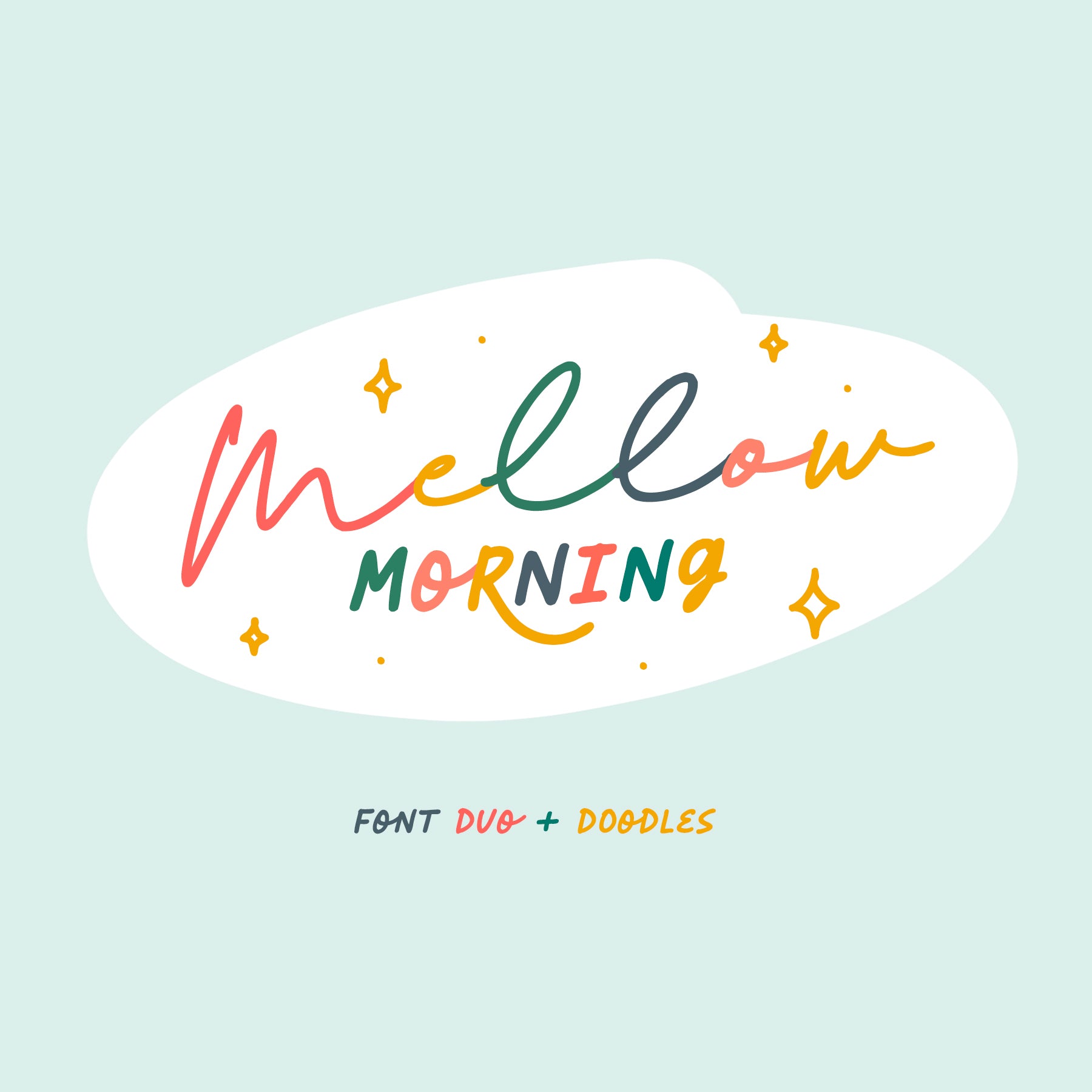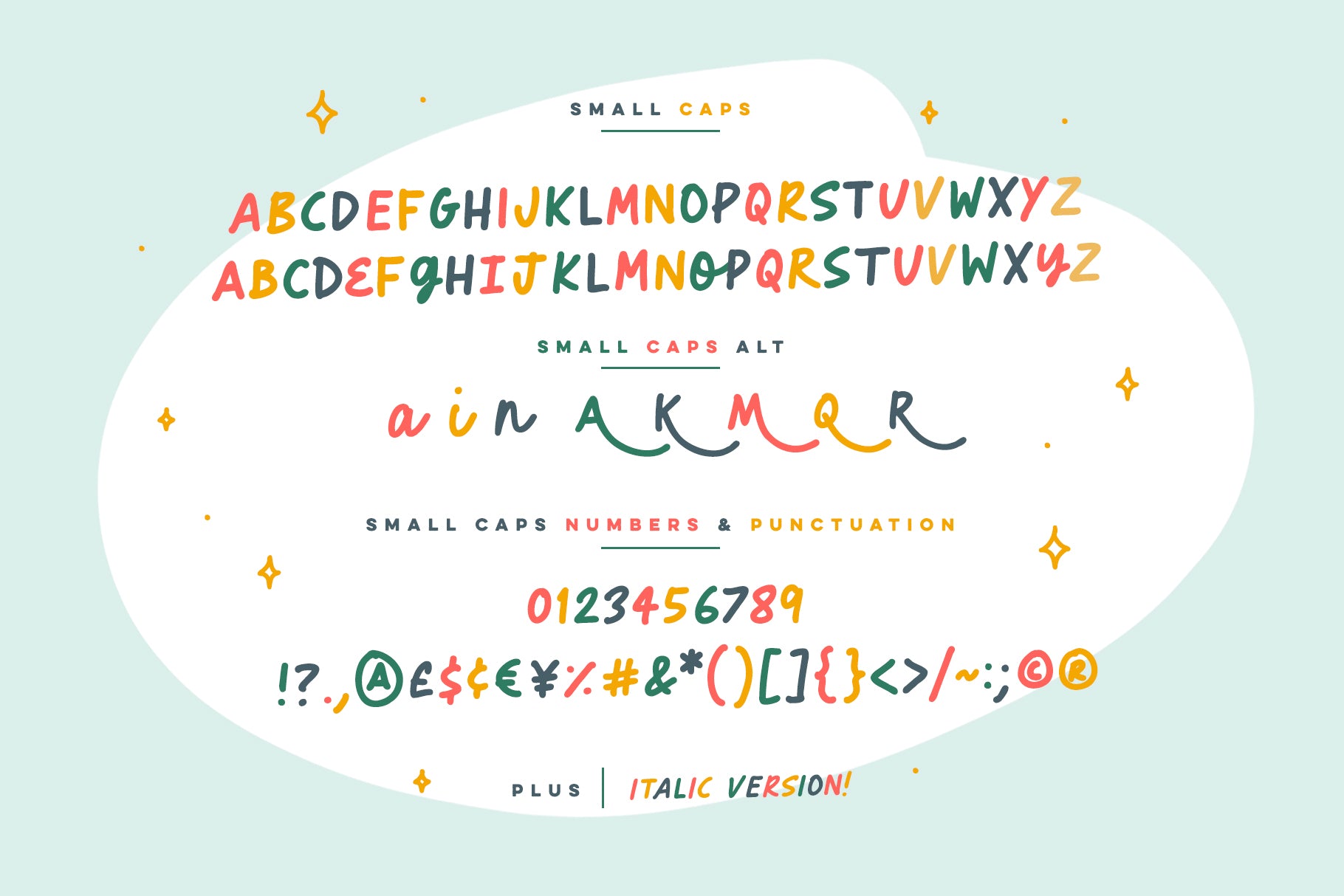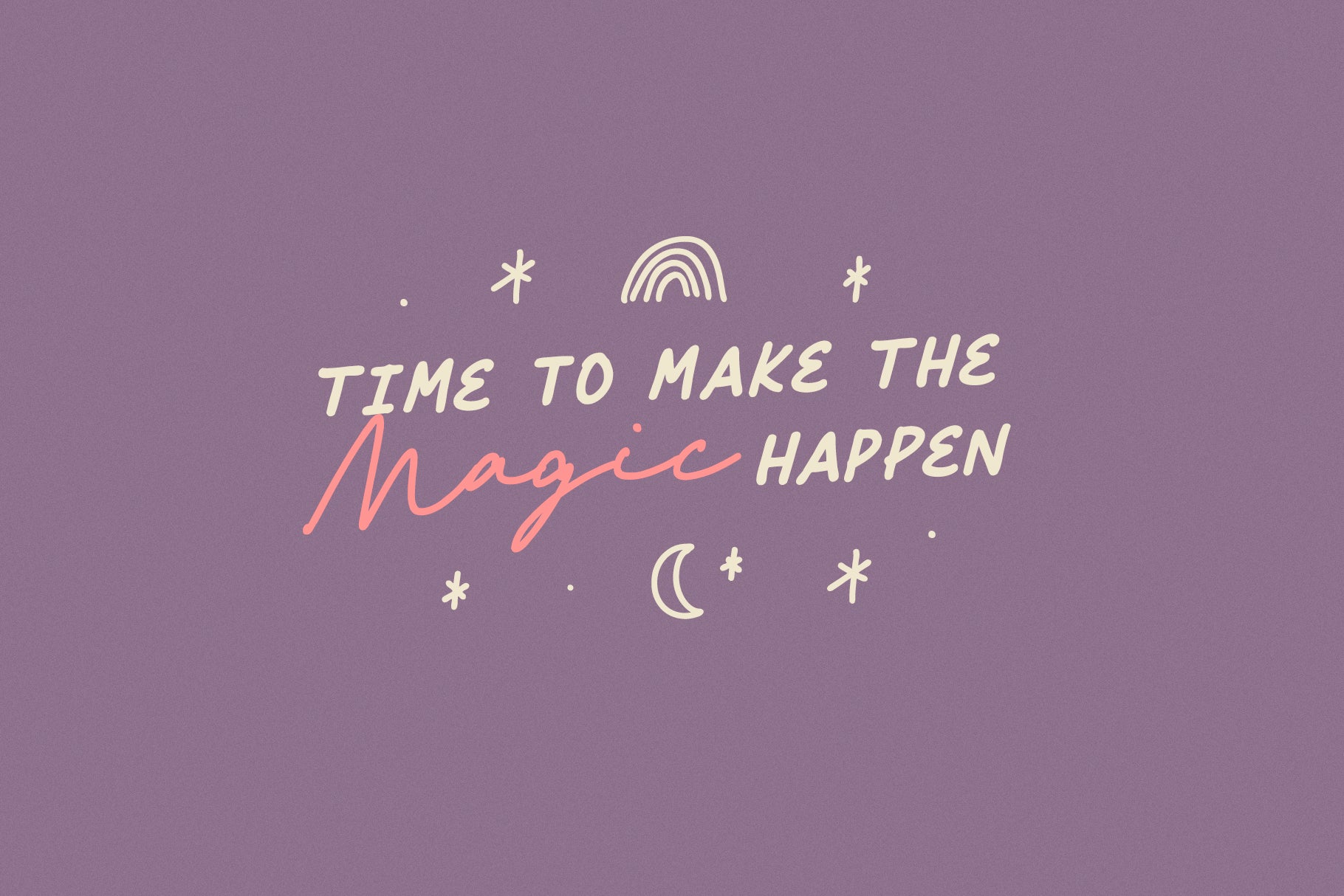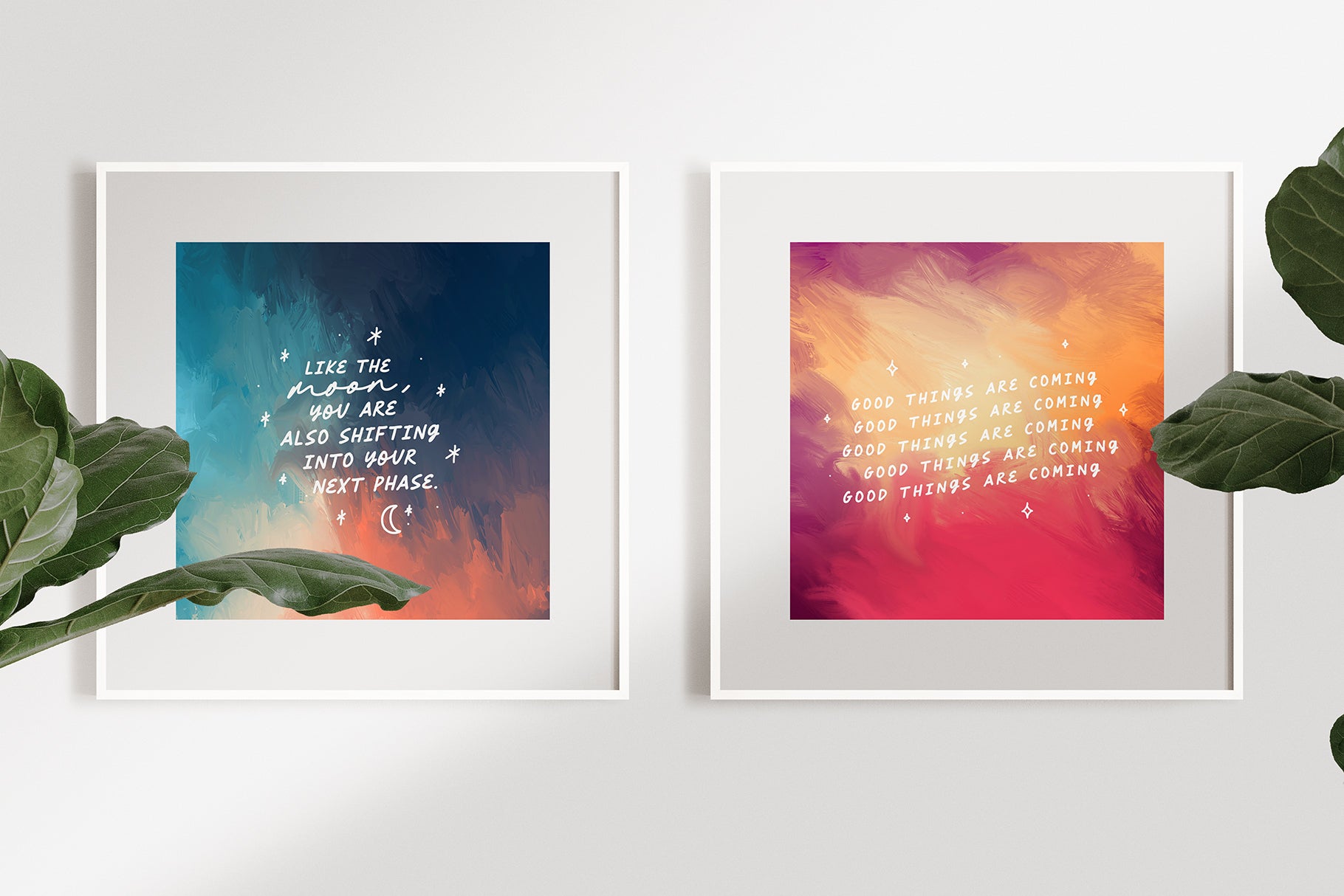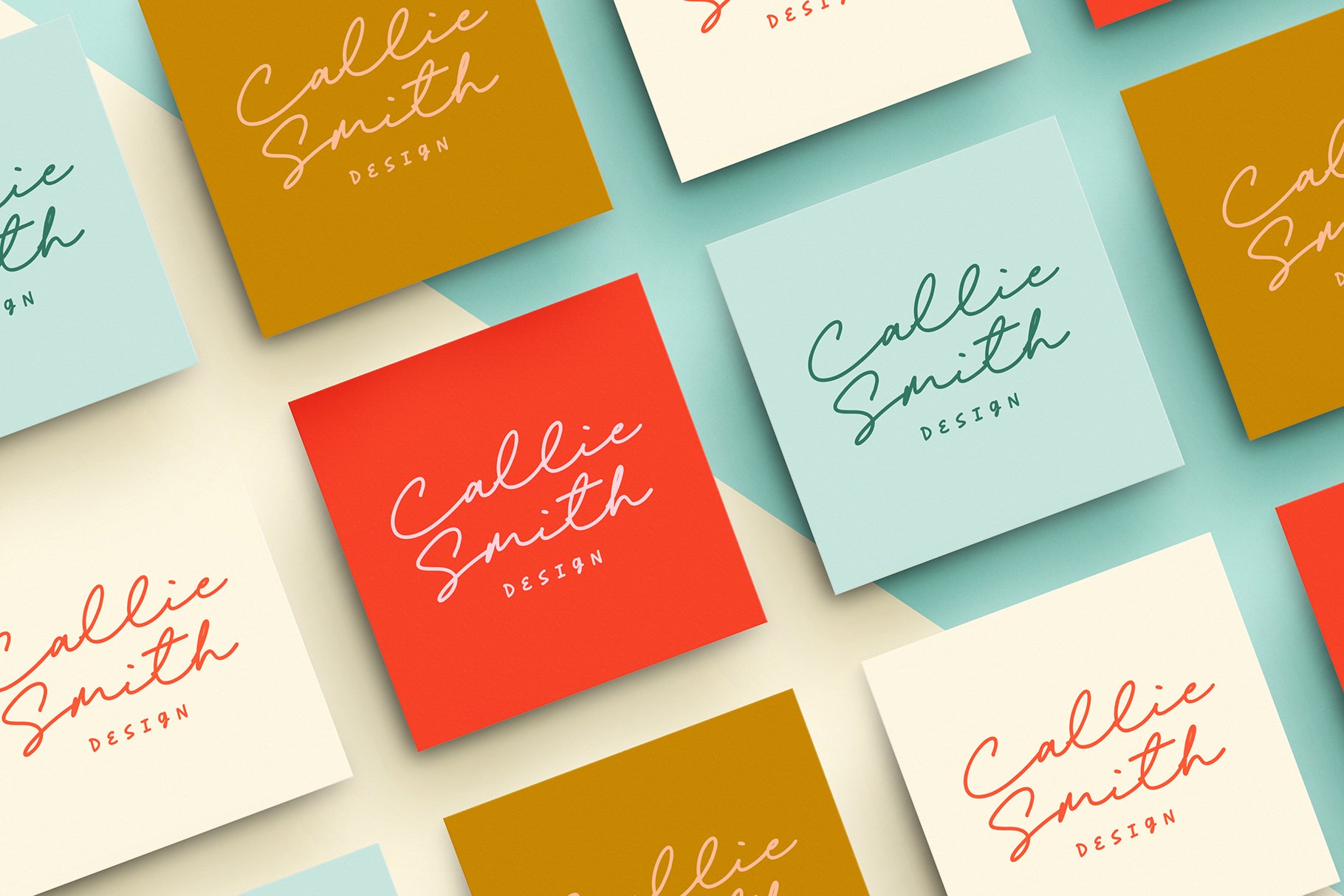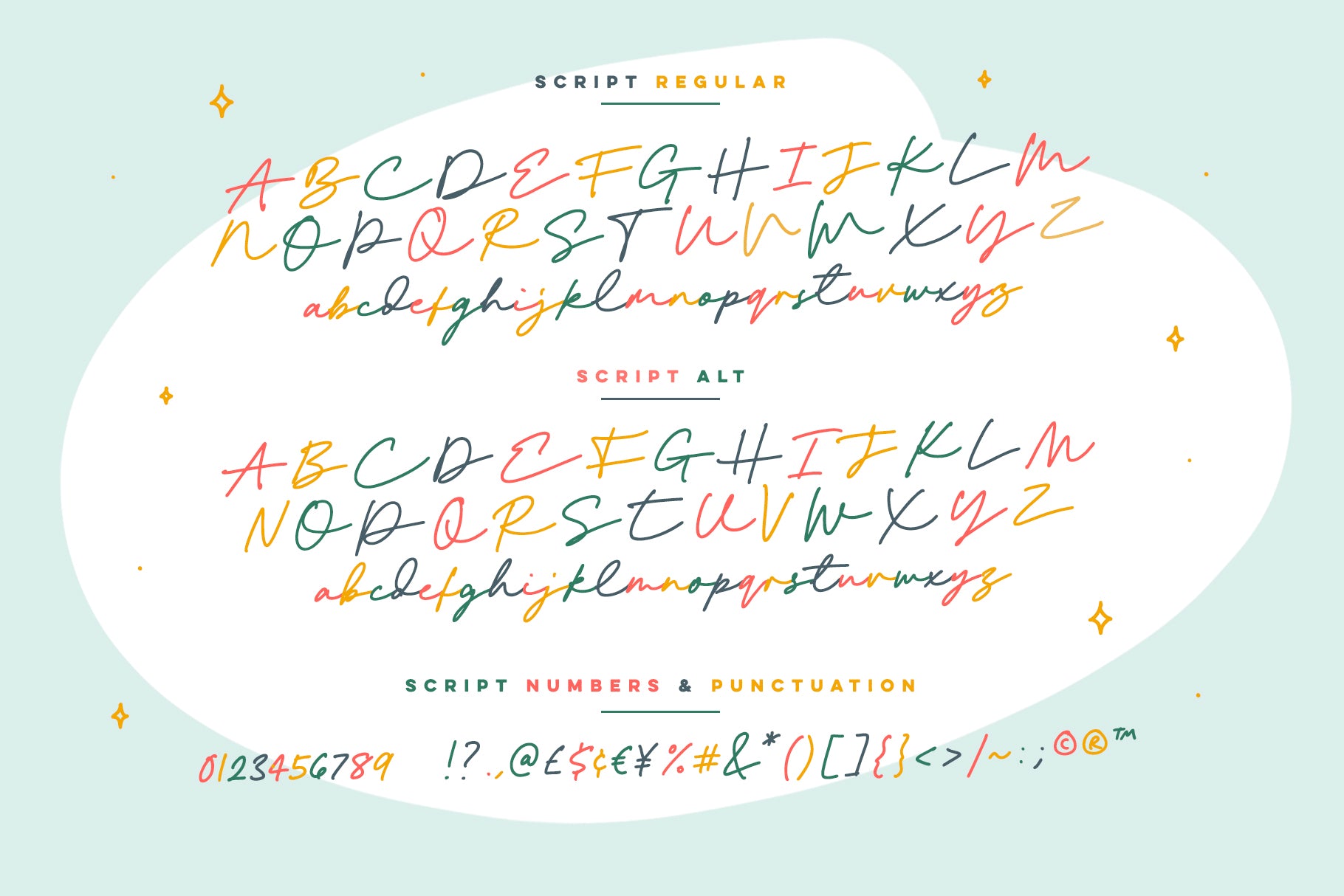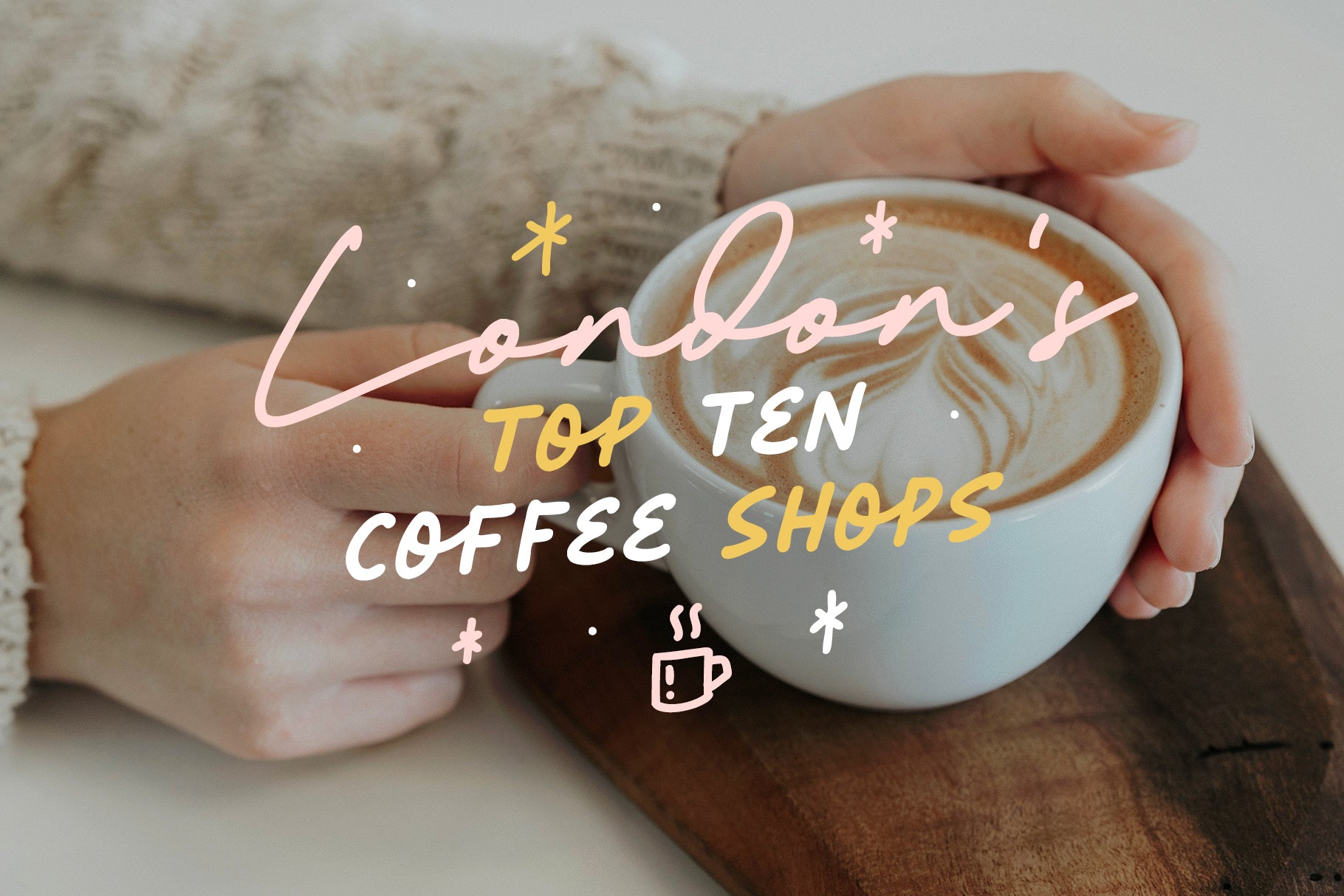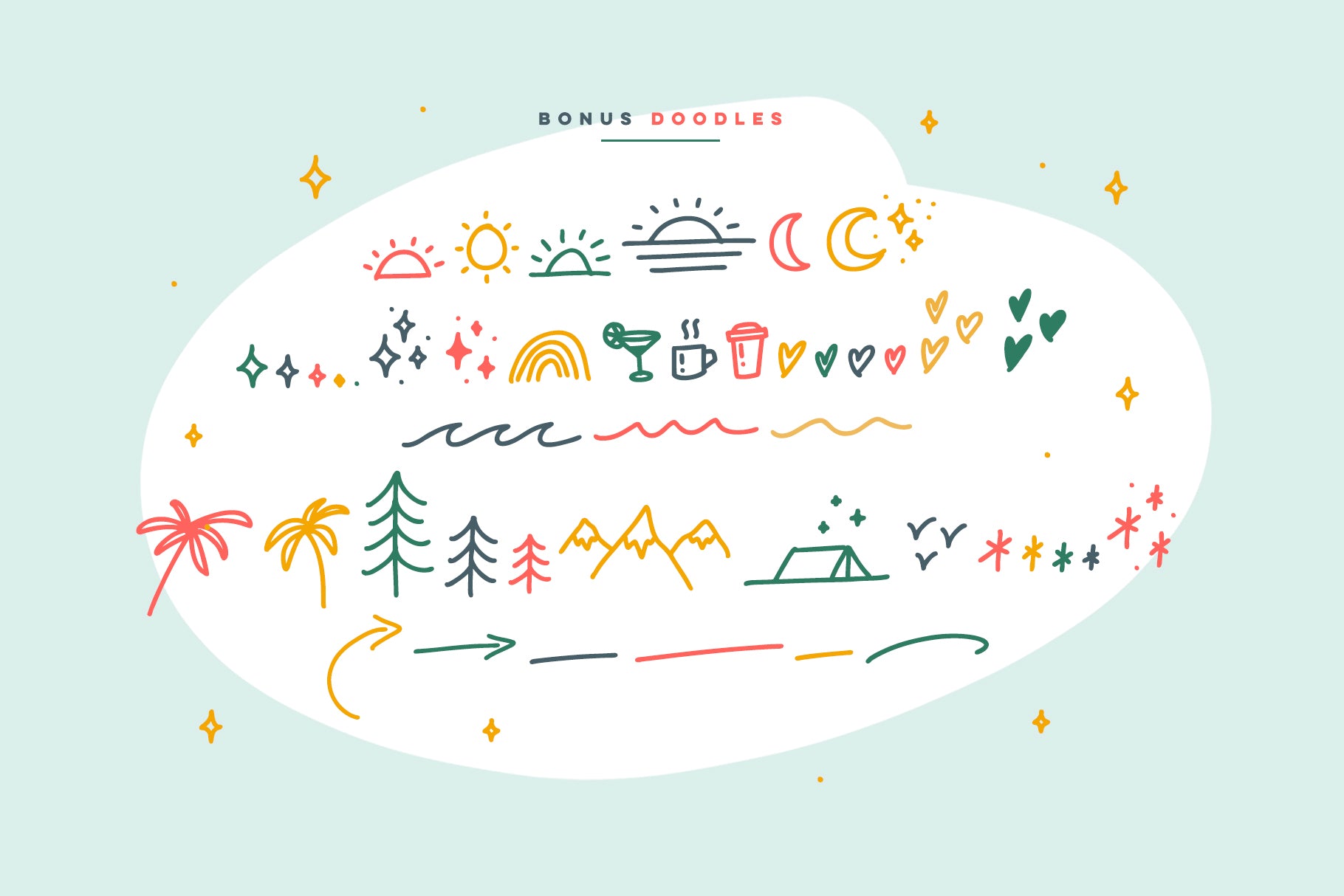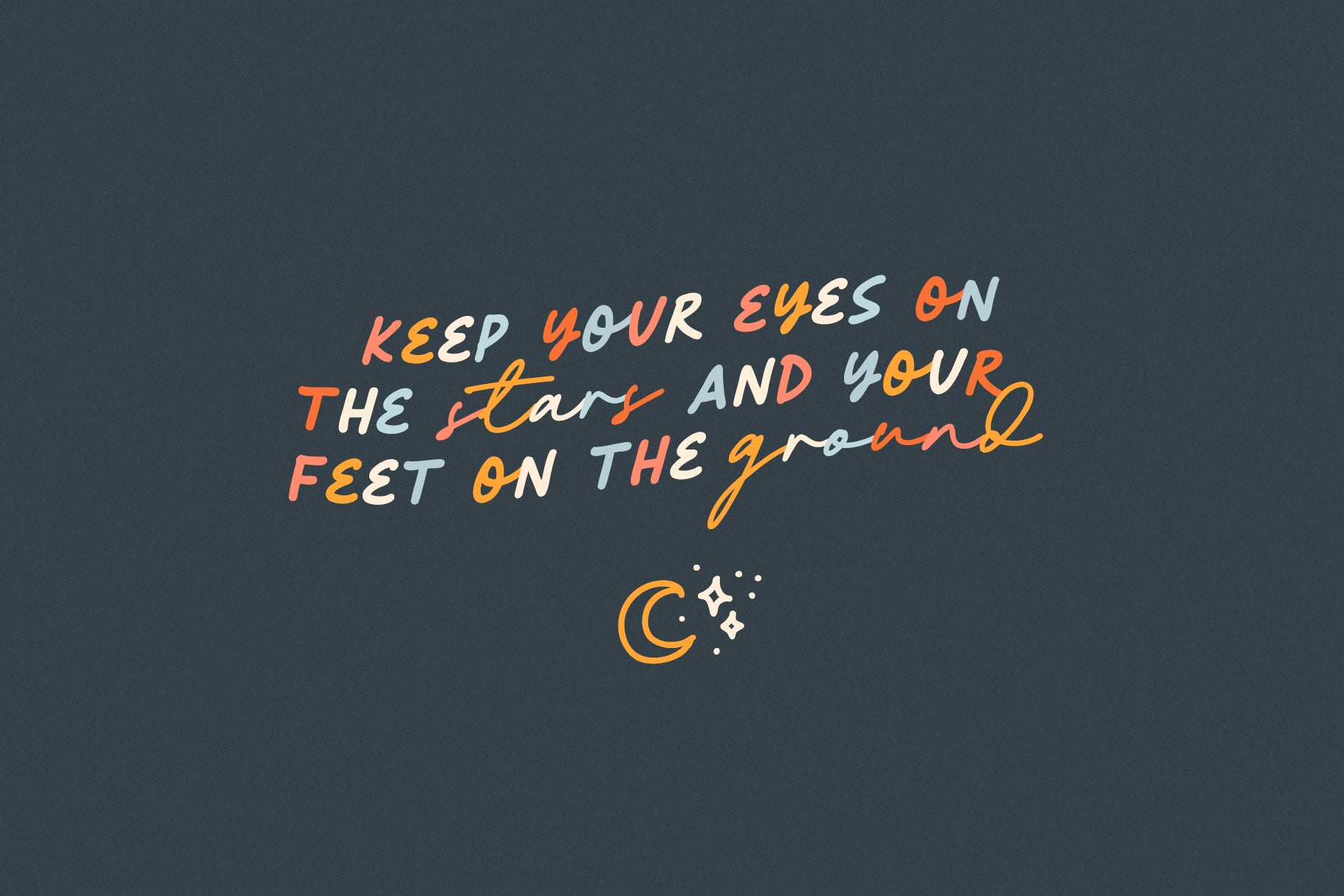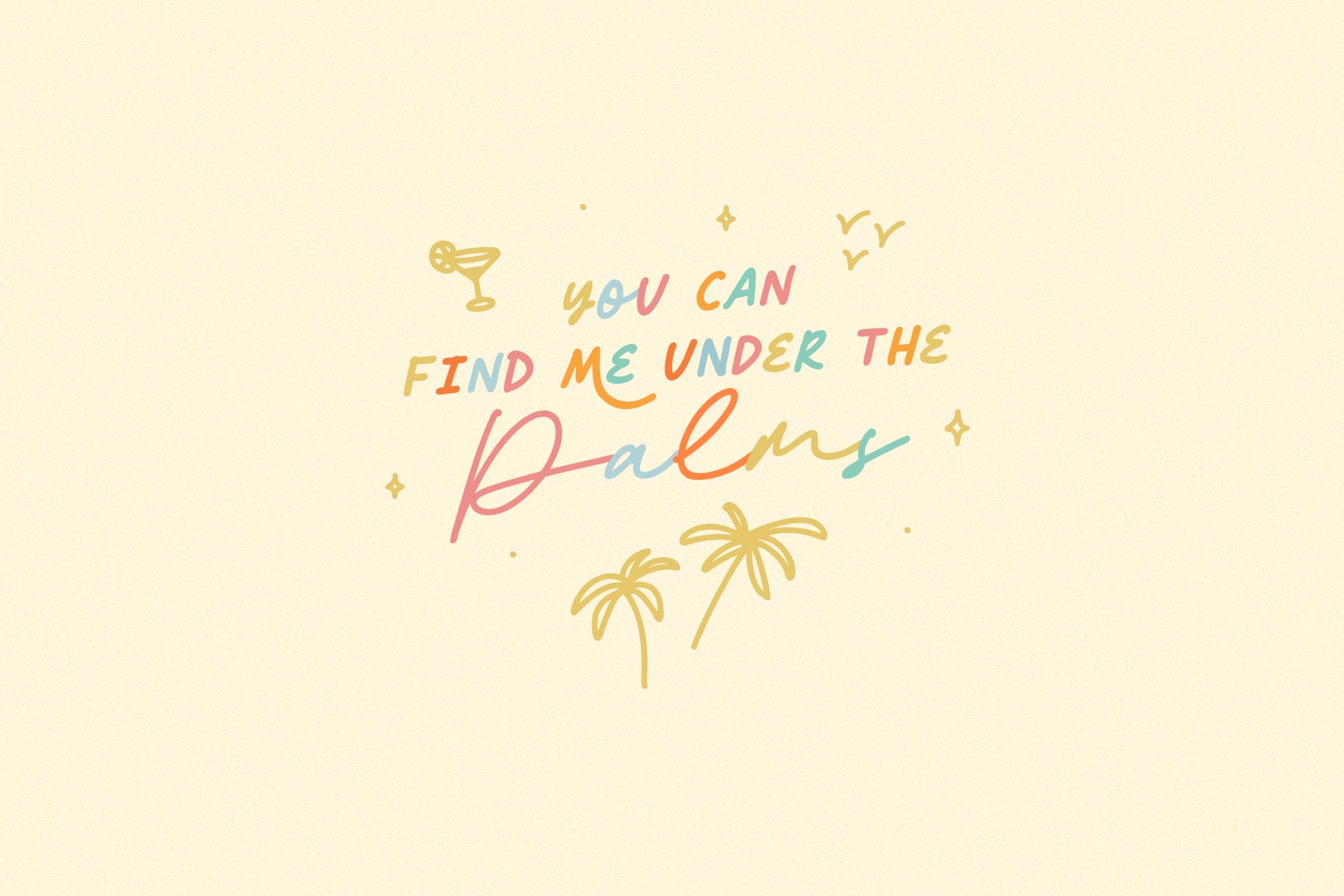
Mellow Morning Font Duo + Doodles
The Mellow Morning Font Duo + Doodles includes a fast-flowing signature script font, a charming small caps font, and a bonus doodle font featuring 45 hand-drawn doodles. It provides five font files in OTF and TTF formats, offering a variety of styles and characters for versatile design options.